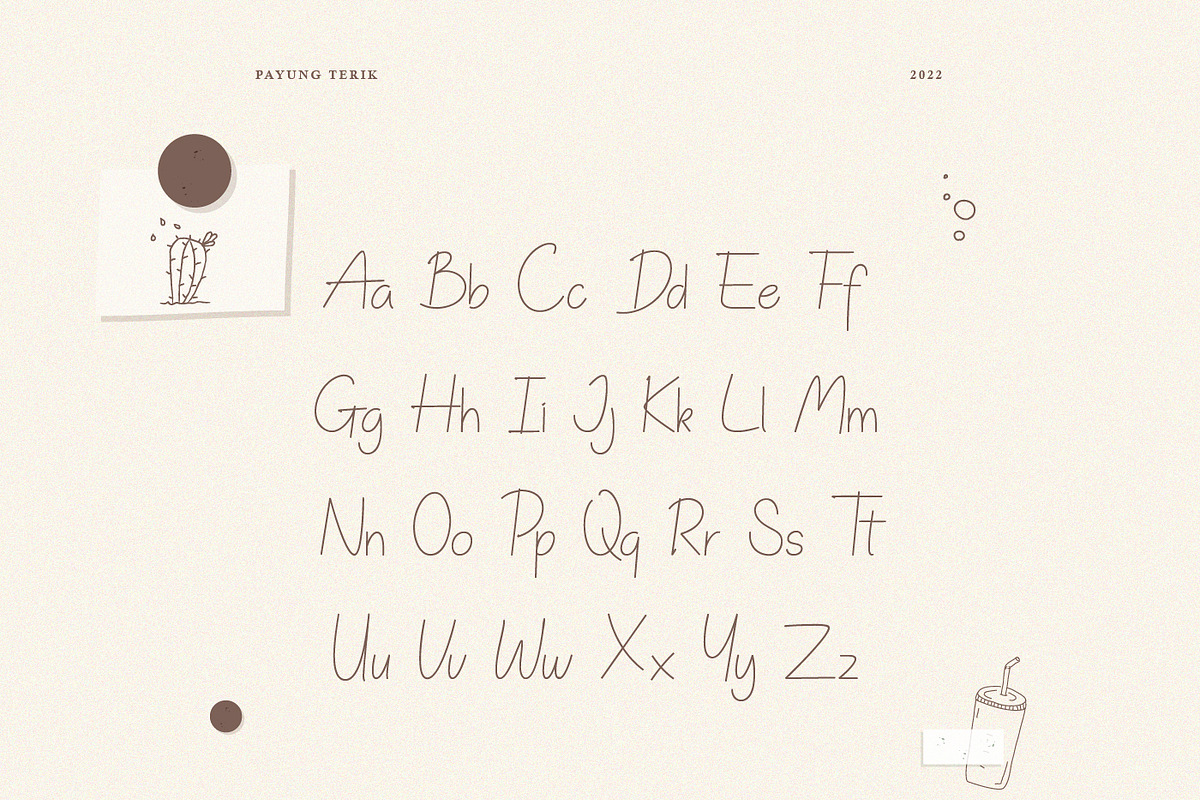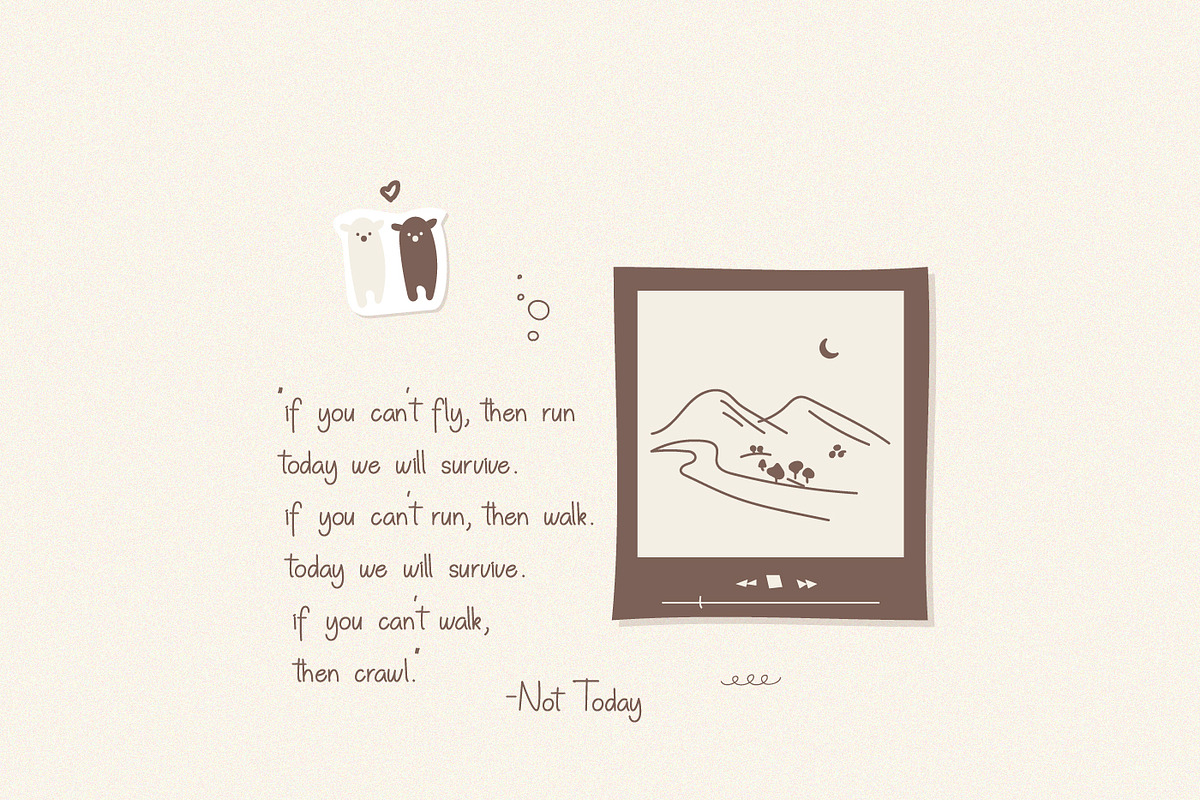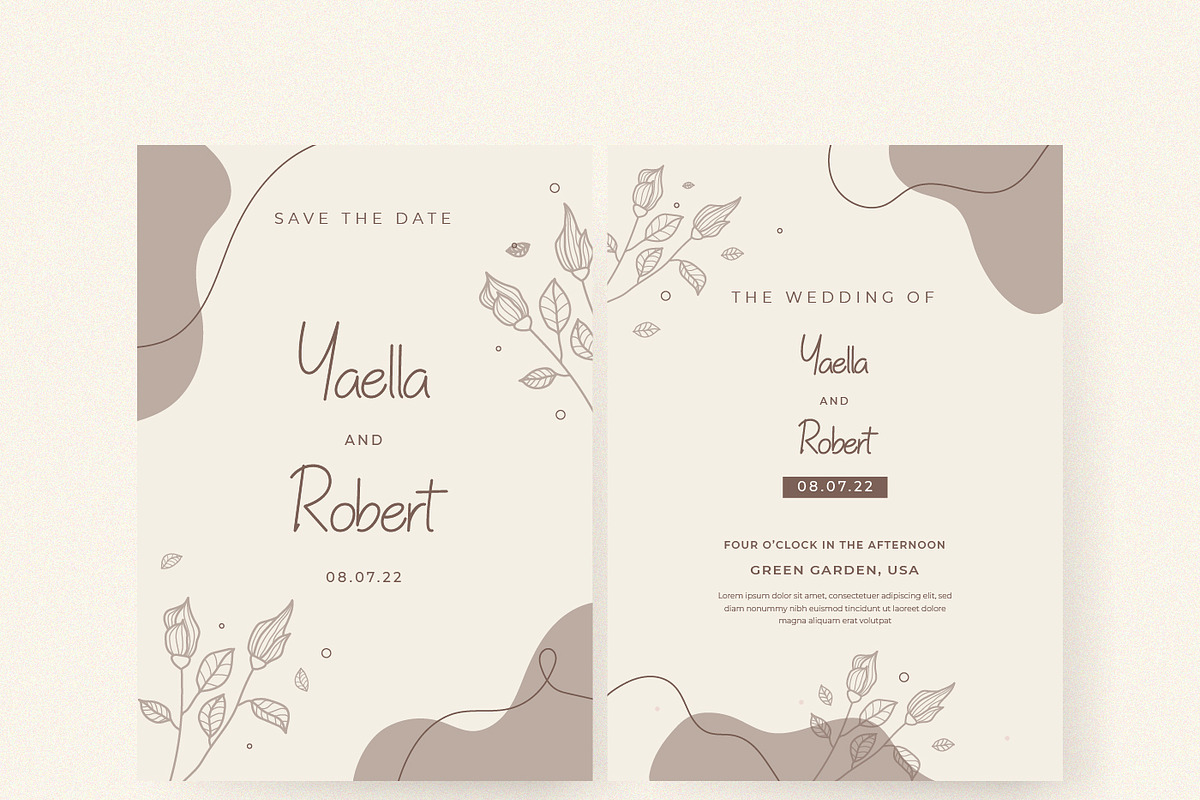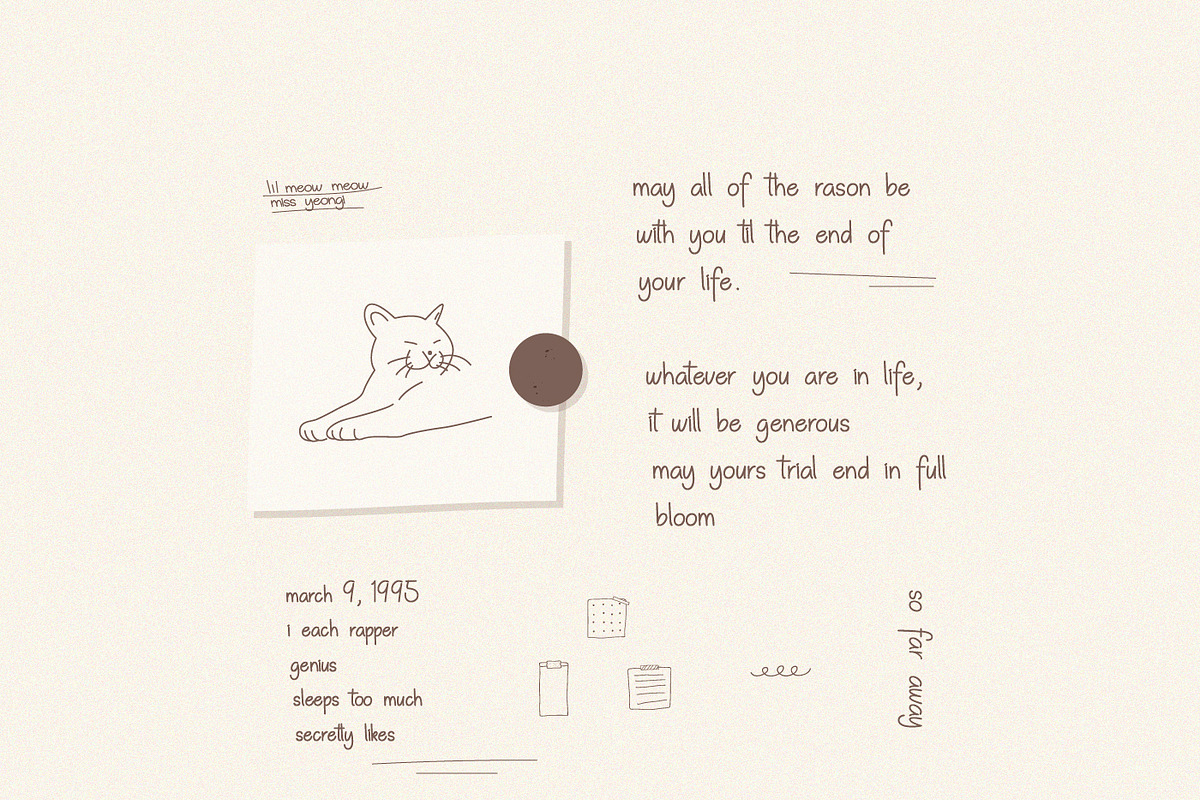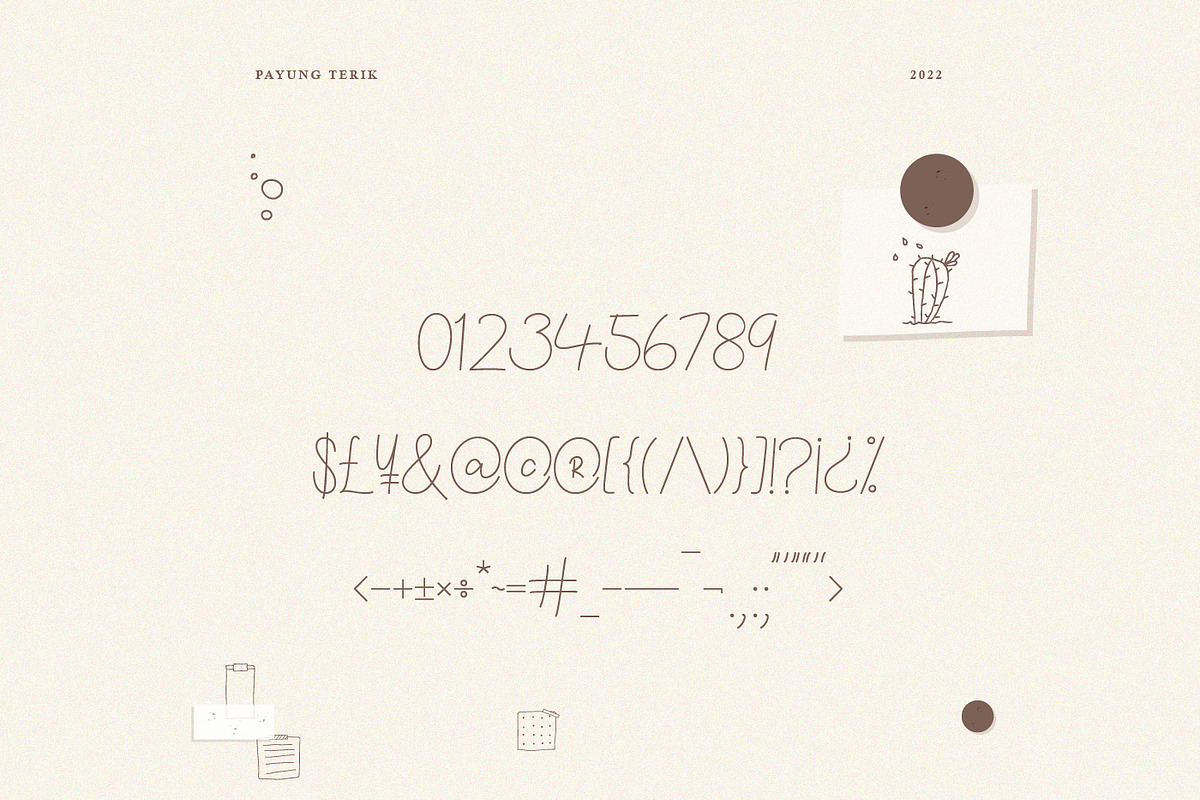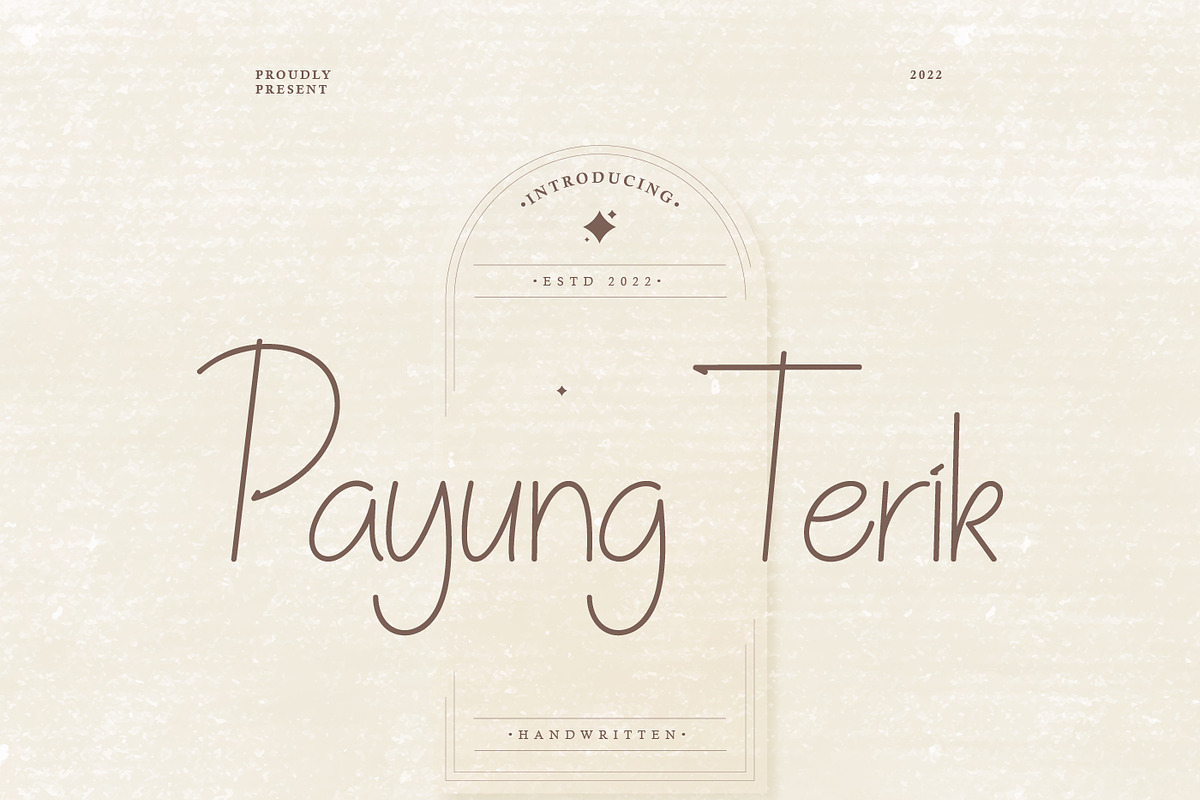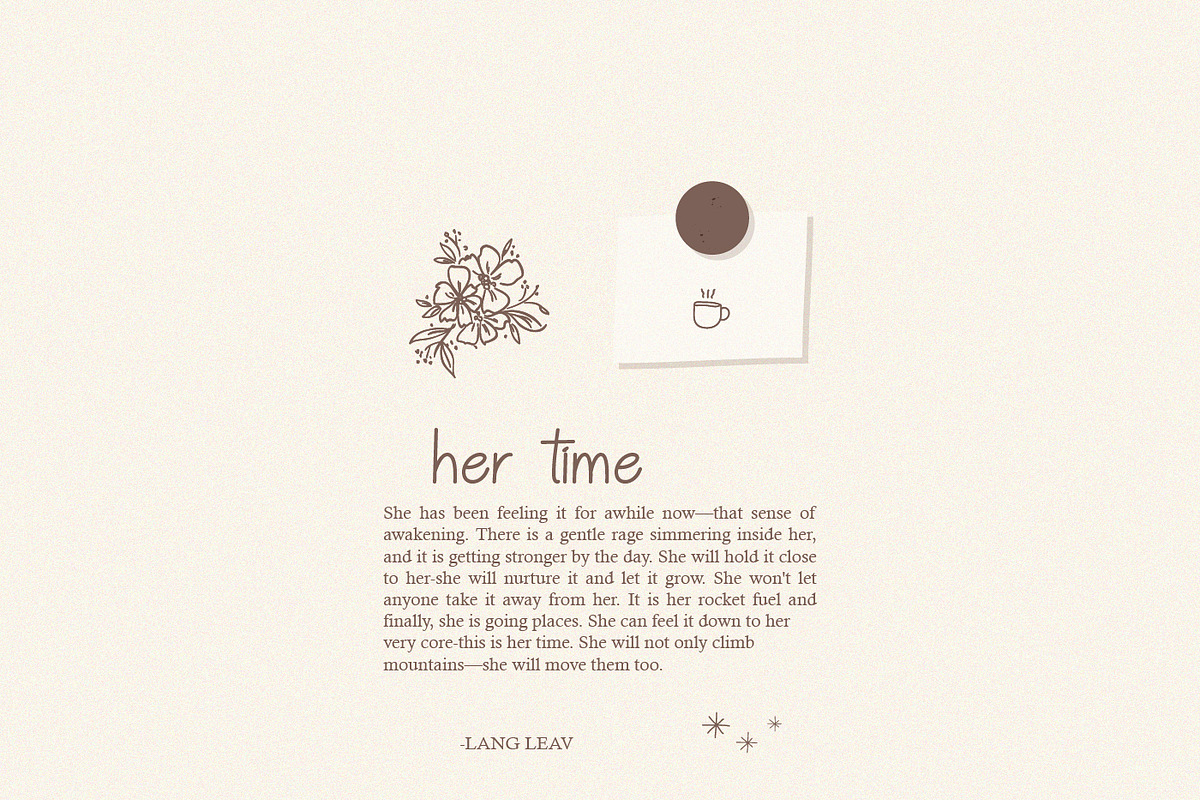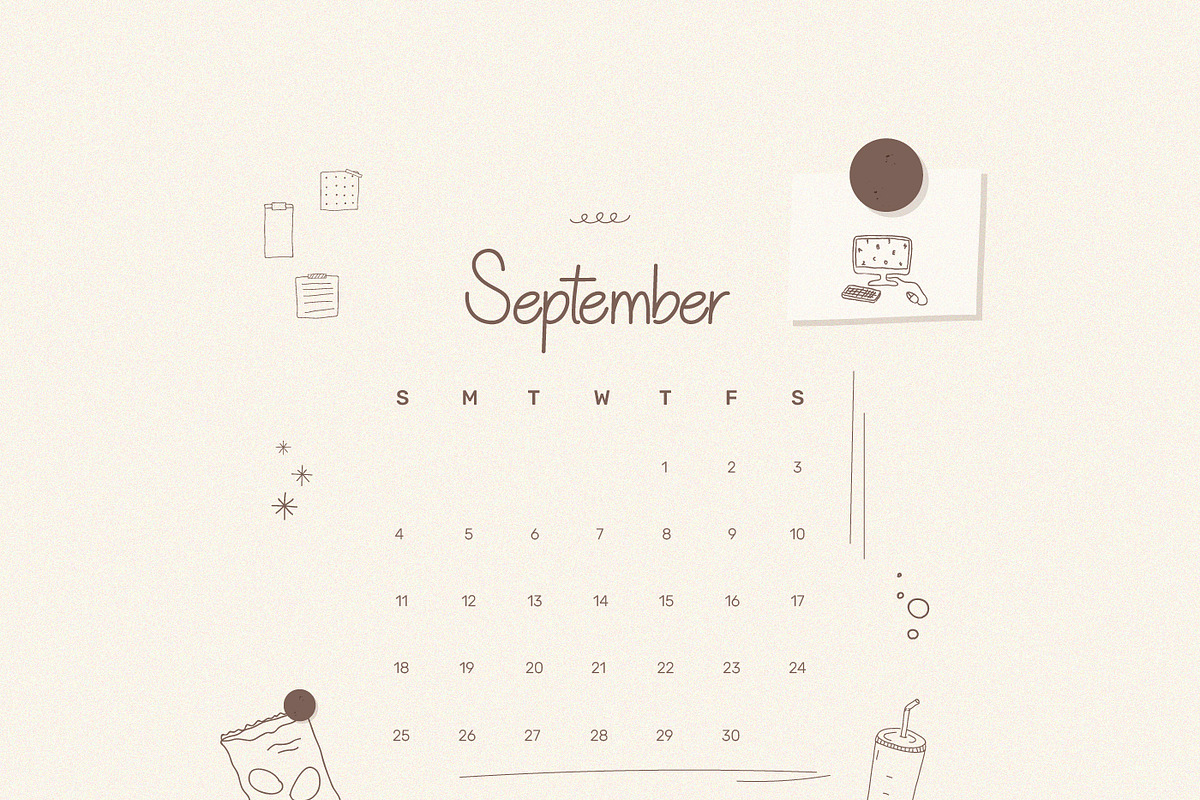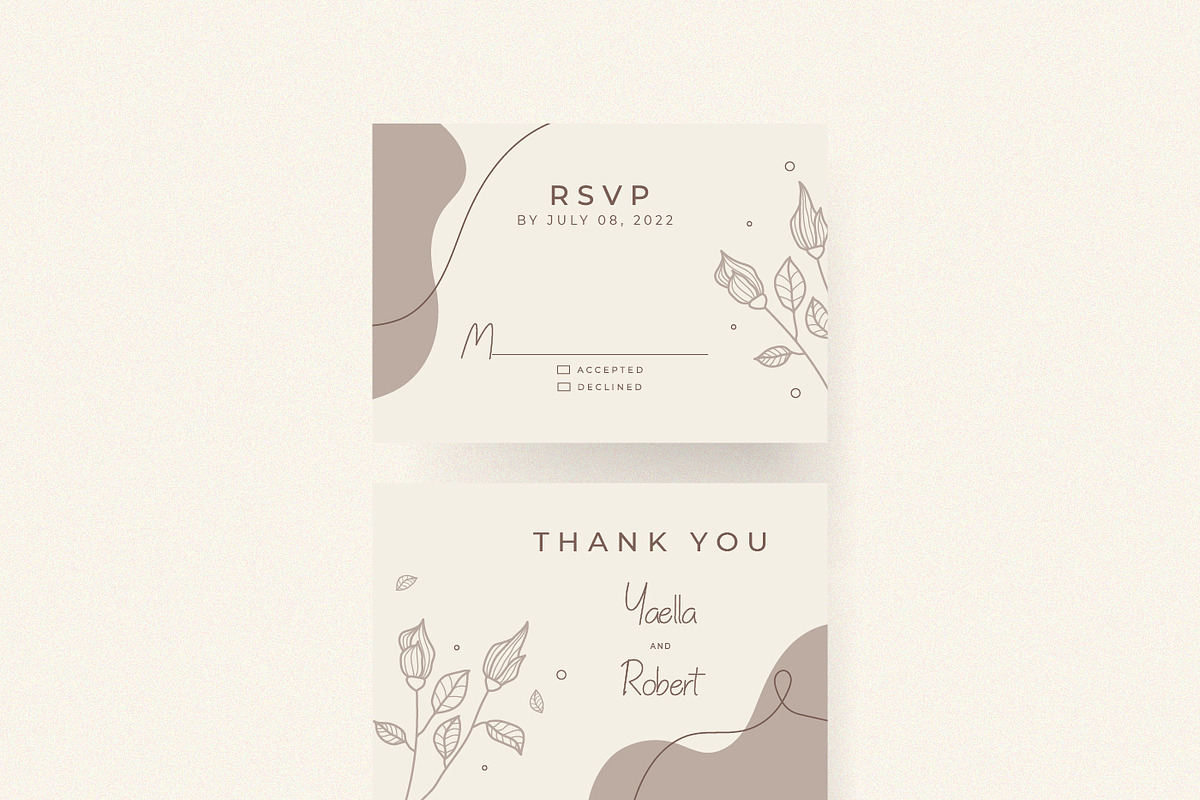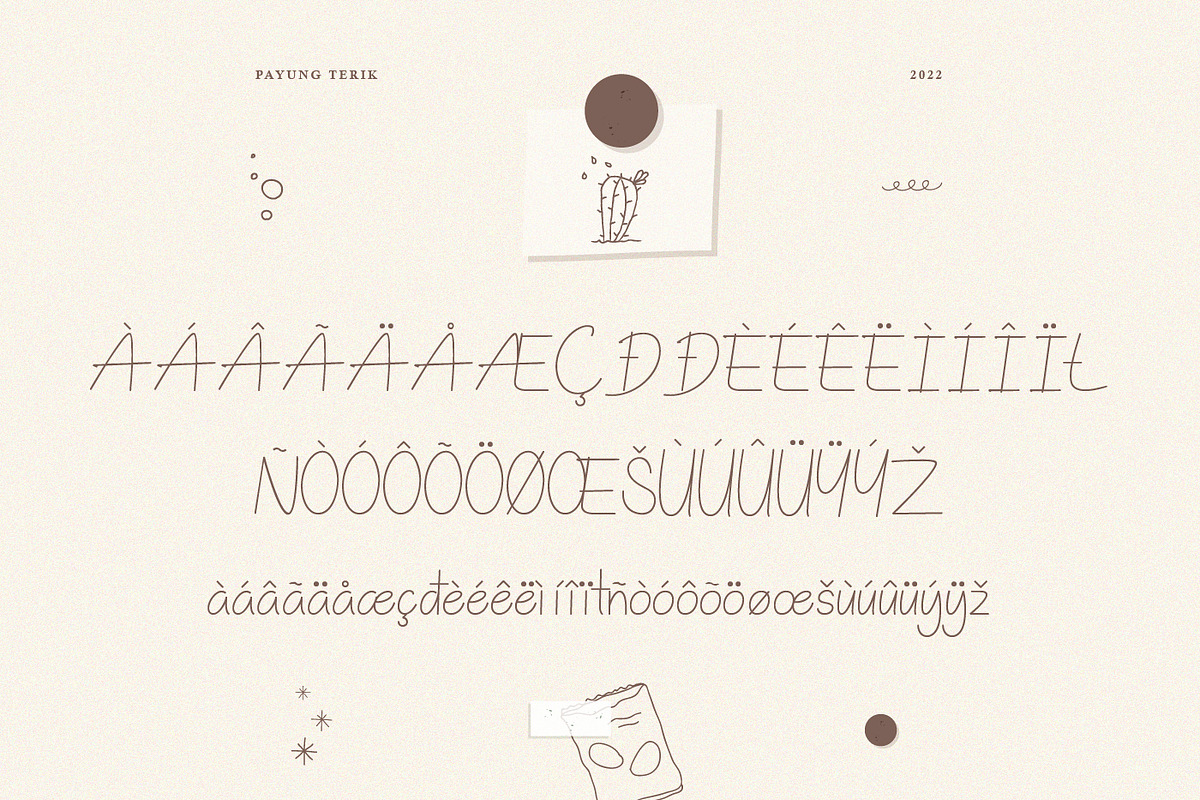
Payung Terik Script Handwritten
One of handwriting font, Payung Terik is inspired from any lettering in study journal and scrapbook. "Payung Terik" is well-written by imitate ballpoint brush, due to "Payung Terik" will look like authentic handwritten. Brings cute and simple creatures, it is appropriate for journaling, notes on digital book, logo, small details, etc. "Payung Terik" make the design look more simple and neat as possible, minimalizing over-designed because it is not too thick or too thin.
Named "Payung Terik" because it is representing the font itself, which have creatures as the shadow on the afternoon under the umbrella (Payung); dim but visible as well.